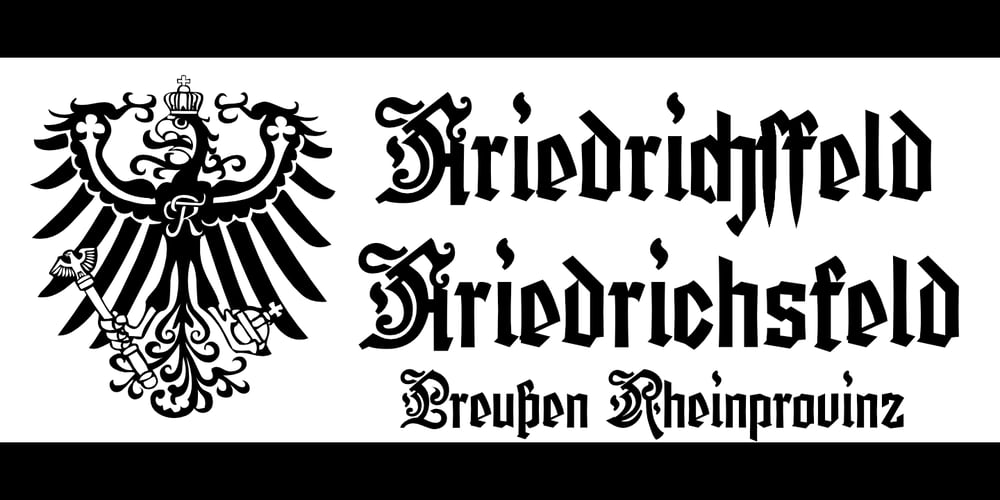
Friedrichsfeld
Friedrichsfeld font
Friedrichsfeld Font Family was designed by published by Otto Maurer. Friedrichsfeld contains 9 styles and family package options. Friedrichsfeld is a small town near there where I live. Friedrichsfeld, Voerde and Wesel was Part of the Preussen Kingdom till 1912. Friedrichsfeld was a Parade ground of the preussen troops and get the name of the King Friedrich II (the old Fritz). Today there is a Preussen Museum near Friedrichsfeld in Wesel. The Font comes in two ground Version, one in the history Letters and old Ligatures and a modern Version.